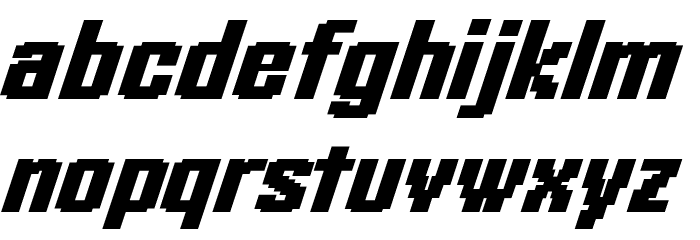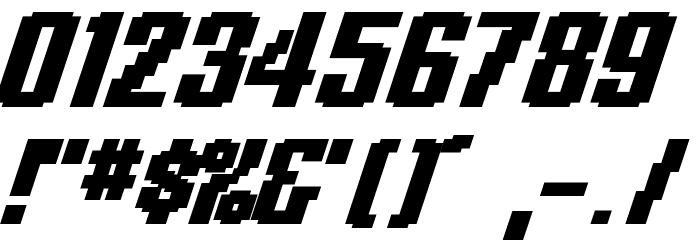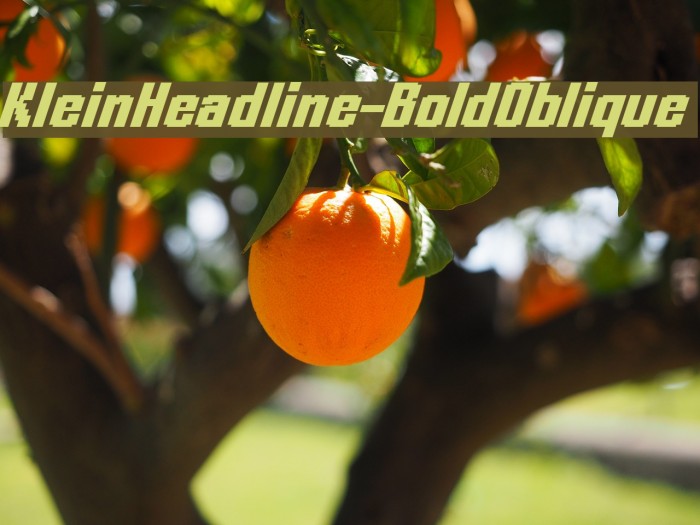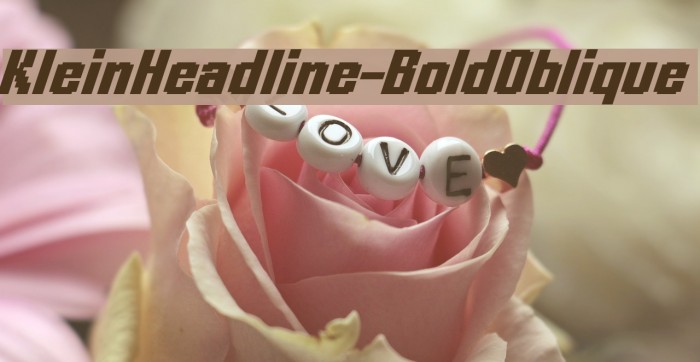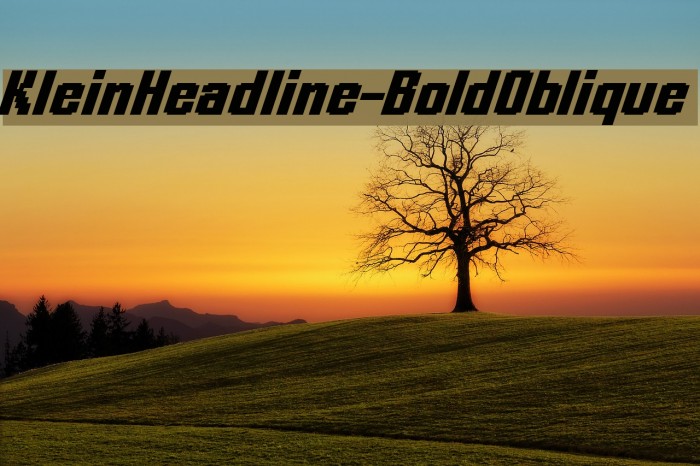
KleinHeadline-BoldOblique Font
This font exhibits a bold and oblique style with a distinctly modern and edgy appearance. The characters are sharply angled, giving a sense of movement and dynamism. The uppercase and lowercase letters maintain a consistent slant, enhancing the font's cohesive look. The numbers and special characters follow the same stylistic approach, ensuring uniformity across all glyphs. The font's bold weight and oblique orientation make it stand out, ideal for capturing attention in various design contexts.
A bold, oblique font with a modern and dynamic style.
- Proposed Projects: Perfect for headlines, posters, branding projects, and any design requiring a bold statement.